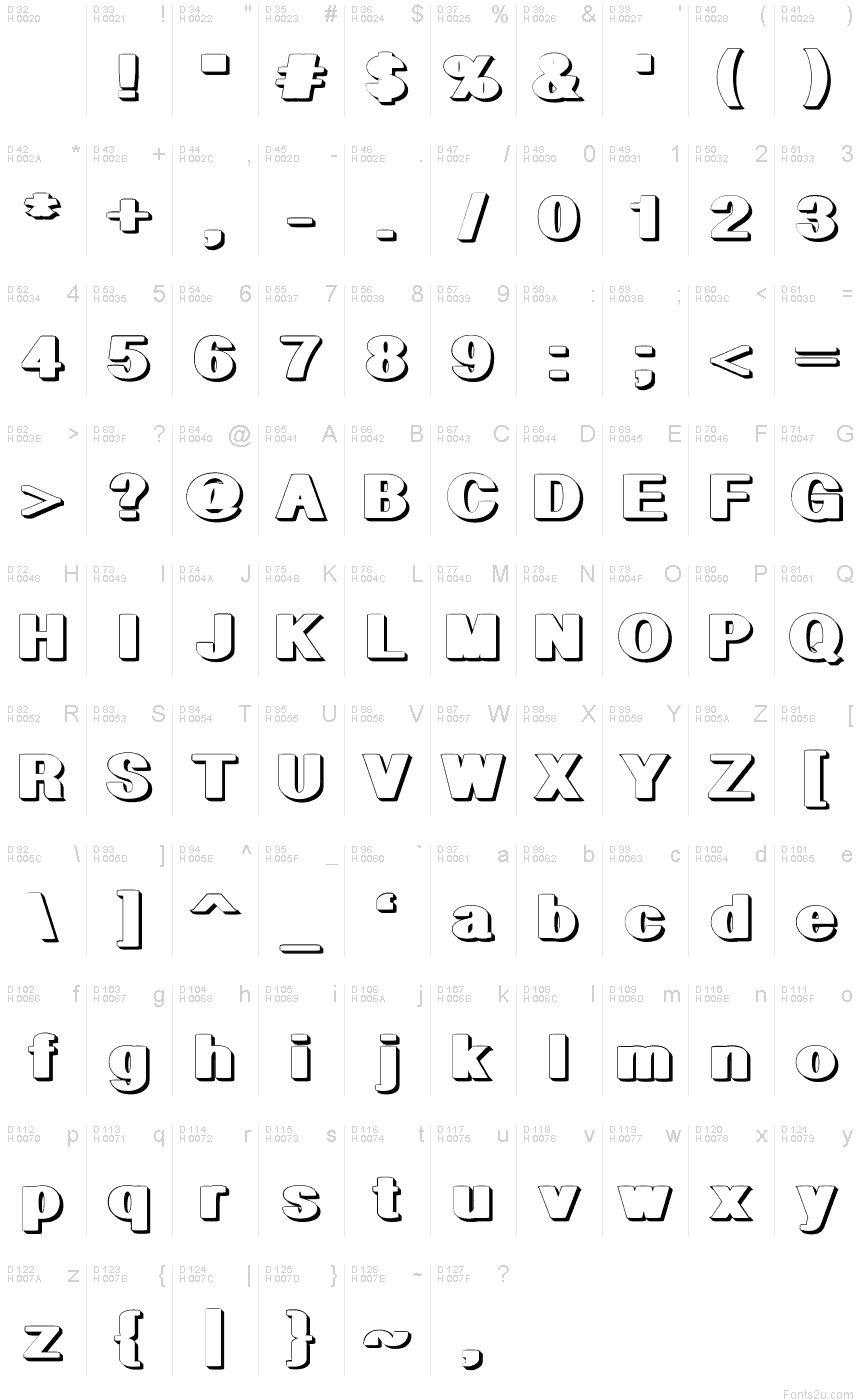
geometric RegularShadow
Geometric Shadow font by Paulo W is a free 3D display typeface with a bold, cartoon-like bounce. Each rounded letter sits on a thick, inky shadow that makes the geometric family feel almost sticker-like, as if it’s ready to peel off the page. The forms are smooth and generous, with a friendly, retro-pop vibe that grabs attention in a split second.
Using Geometric Shadow, your titles and logos instantly read as fun, loud, and approachable, making this free font a natural fit for posters, kids’ branding, party invitations, comics, game titles, and social media graphics. The built-in shadow saves you from manual layering while giving text a solid, grounded look. For a clean hierarchy, pair it with a simple sans serif for body copy and keep geometric Shadow large so the 3D effect really pops.